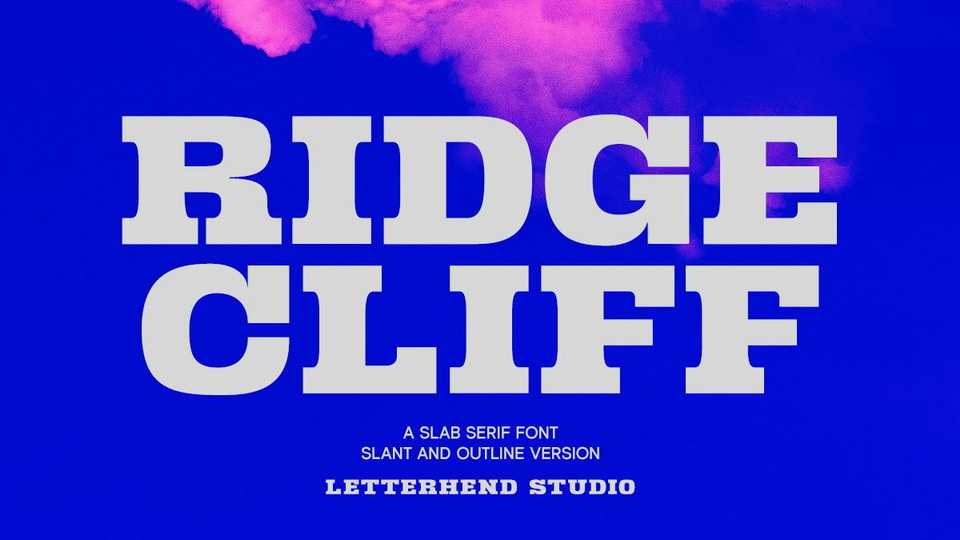
Download Ridge Cliff font, a bold slab serif typeface with strong look and feel. Ridge Cliff font perfectly made to be applied especially in logo, headline, signage, posters and impact statements.